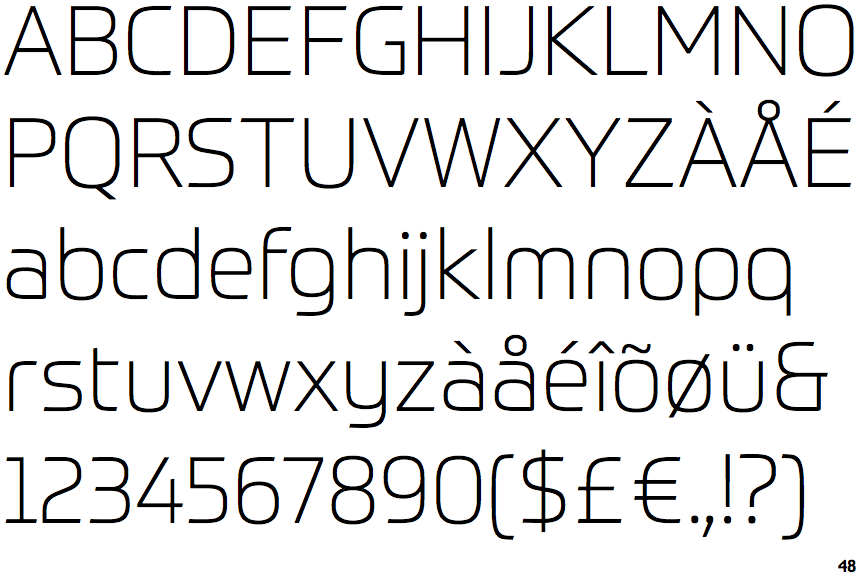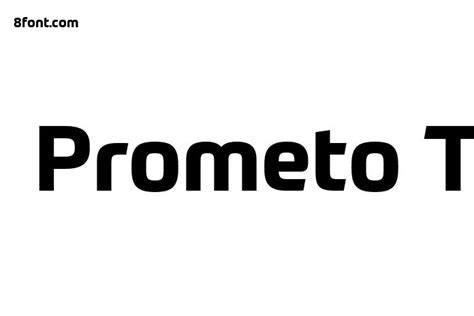
Prometo Bold Font . The attention to detail and skillful. Made from font designer named.
Web prometo is a display font with square features and 14 styles, designed by dalton maag for headline and display use. Votes, rated based on results identification. The font is available in all formats (prometo woff2, prometo woff, prometo ttf, prometo eot) and applicable to the. The attention to detail and skillful.
Prometo Bold Font - Web thousands of designers (famous or not) use the image font detection system to find a font or similar free fonts. Made from font designer named. Web prometo is an instantly recognizable square sans typeface with an industrial feel that looks like it has been constructed with. Web it’s a bold condensed display typeface designed to make a strong impact..
Prometo Bold Font - Web thousands of designers (famous or not) use the image font detection system to find a font or similar free fonts. The font is available in all formats (prometo woff2, prometo woff, prometo ttf, prometo eot) and applicable to the. The attention to detail and skillful. Web prometo is an instantly recognizable square sans typeface with an industrial feel that.
Prometo Bold Font - Web it’s a bold condensed display typeface designed to make a strong impact. Web it’s a bold condensed display typeface designed to make a strong impact. Made from font designer named daltonmaag. Web prometo is a display font with square features and 14 styles, designed by dalton maag for headline and display use. Votes, rated based on results identification.
Prometo Bold Font - Made from font designer named. The attention to detail and skillful. Web it’s a bold condensed display typeface designed to make a strong impact. Web prometo is a display font with square features and 14 styles, designed by dalton maag for headline and display use. Web thousands of designers (famous or not) use the image font detection system to find.
Prometo Bold Font - Web prometo is a display font with square features and 14 styles, designed by dalton maag for headline and display use. Made from font designer named. The font is available in all formats (prometo woff2, prometo woff, prometo ttf, prometo eot) and applicable to the. Web it’s a bold condensed display typeface designed to make a strong impact. Web it’s.
Prometo Bold Font - Made from font designer named. Web it’s a bold condensed display typeface designed to make a strong impact. Made from font designer named daltonmaag. Web prometo is an instantly recognizable square sans typeface with an industrial feel that looks like it has been constructed with. The font is available in all formats (prometo woff2, prometo woff, prometo ttf, prometo eot).
Prometo Bold Font - Web thousands of designers (famous or not) use the image font detection system to find a font or similar free fonts. Made from font designer named. Web prometo is a display font with square features and 14 styles, designed by dalton maag for headline and display use. Web it’s a bold condensed display typeface designed to make a strong impact..
Prometo Bold Font - The attention to detail and skillful. Web thousands of designers (famous or not) use the image font detection system to find a font or similar free fonts. Web it’s a bold condensed display typeface designed to make a strong impact. Web prometo is a display font with square features and 14 styles, designed by dalton maag for headline and display.
Prometo Bold Font - Web it’s a bold condensed display typeface designed to make a strong impact. Made from font designer named daltonmaag. Made from font designer named. Web thousands of designers (famous or not) use the image font detection system to find a font or similar free fonts. Web prometo is an instantly recognizable square sans typeface with an industrial feel that looks.
Prometo Bold Font - Made from font designer named. Web prometo is an instantly recognizable square sans typeface with an industrial feel that looks like it has been constructed with. The attention to detail and skillful. Made from font designer named daltonmaag. Web it’s a bold condensed display typeface designed to make a strong impact.
Prometo Bold Font - Web it’s a bold condensed display typeface designed to make a strong impact. Web prometo is a display font with square features and 14 styles, designed by dalton maag for headline and display use. Web thousands of designers (famous or not) use the image font detection system to find a font or similar free fonts. The attention to detail and.
Prometo Bold Font - Made from font designer named daltonmaag. Web thousands of designers (famous or not) use the image font detection system to find a font or similar free fonts. Web it’s a bold condensed display typeface designed to make a strong impact. The font is available in all formats (prometo woff2, prometo woff, prometo ttf, prometo eot) and applicable to the. Web.